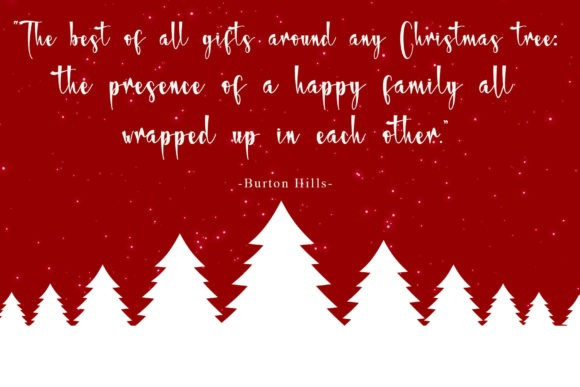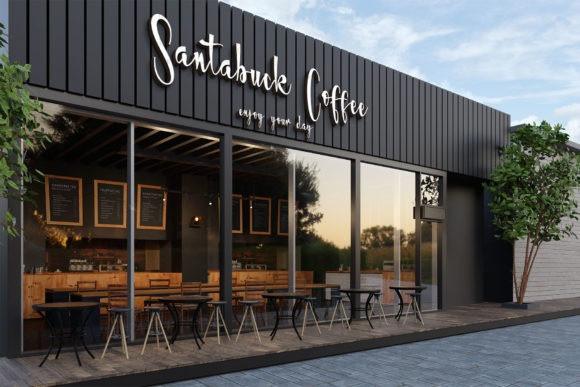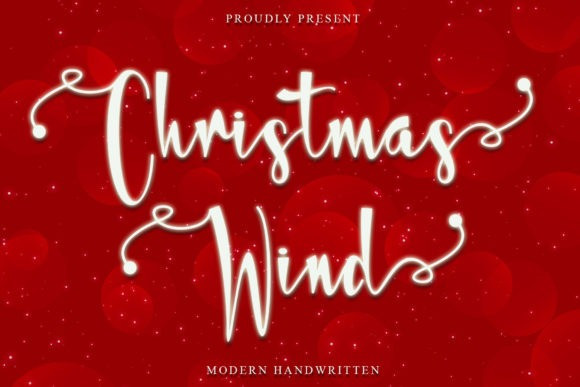
Christmas Wind Font
Christmas Wind Script Font is a Christmas font with a very elegant, beautiful, attractive, and festive line. Christmas Wind is perfect for invitations, wedding invitations, greeting cards, branding, etc. Celebrate your Christmas with the festive Christmas Wind font!